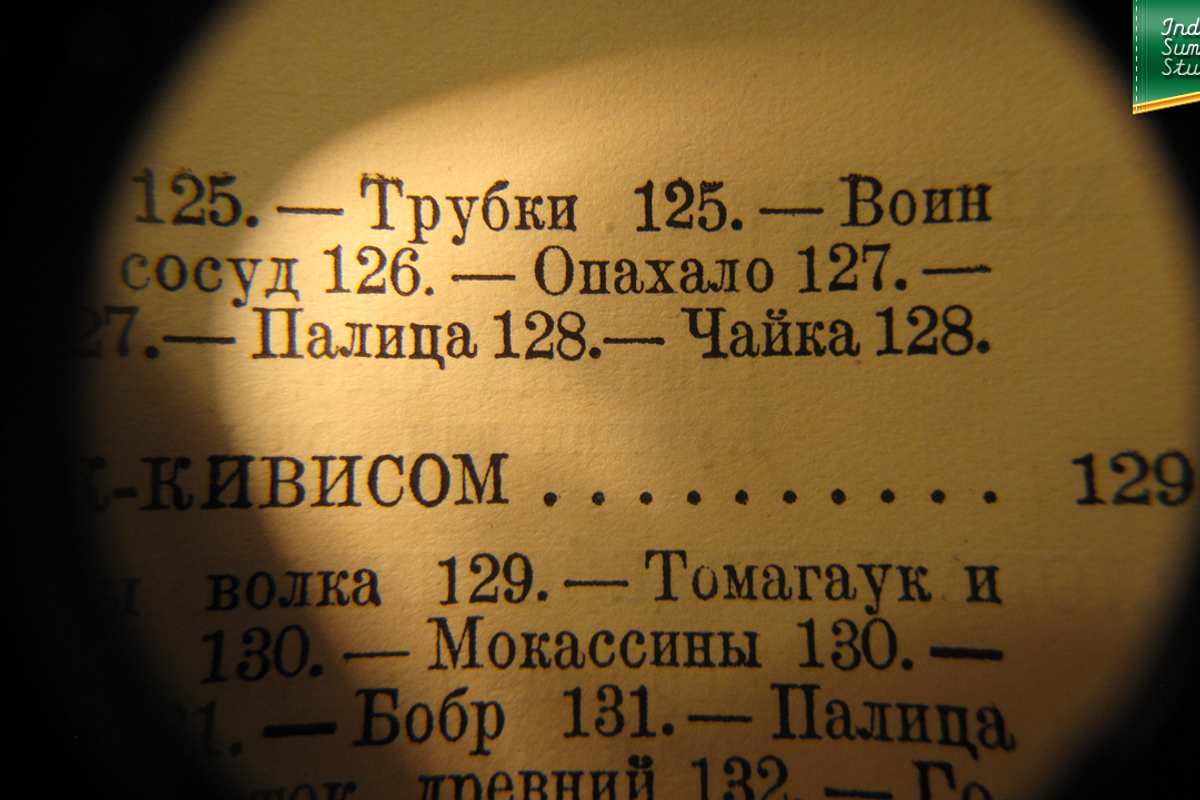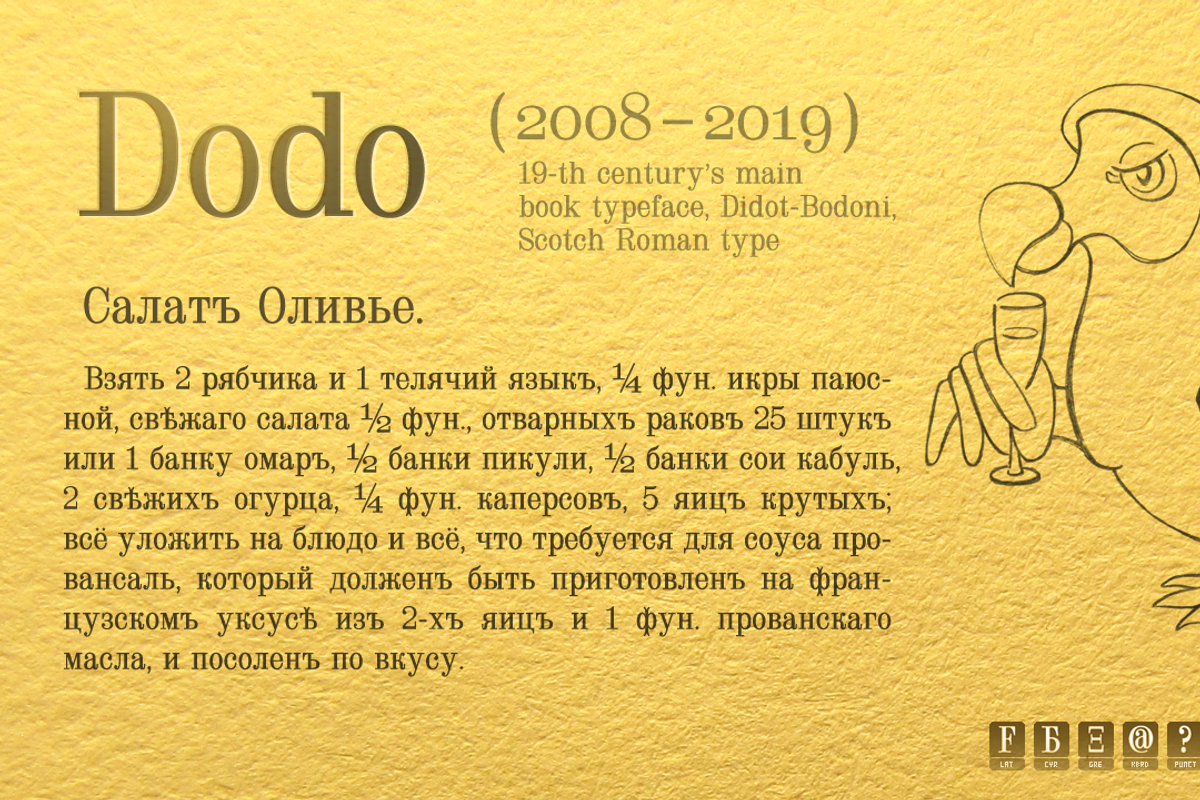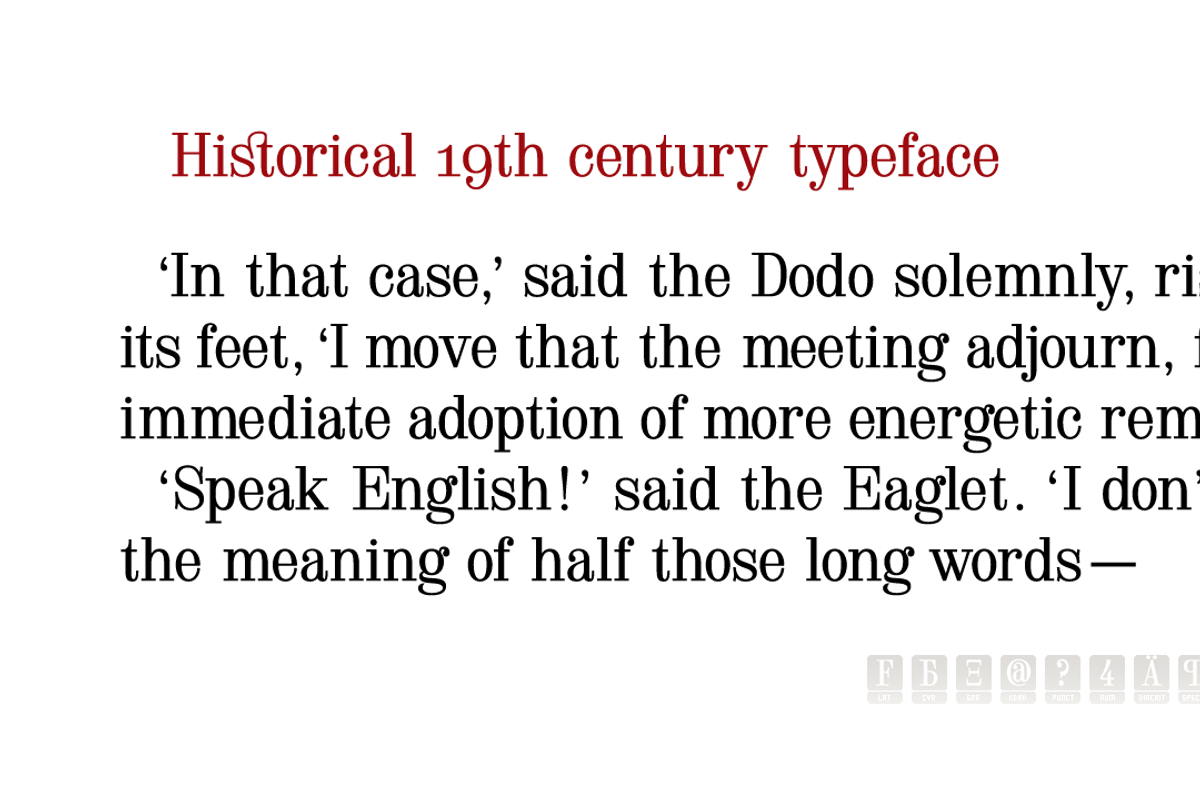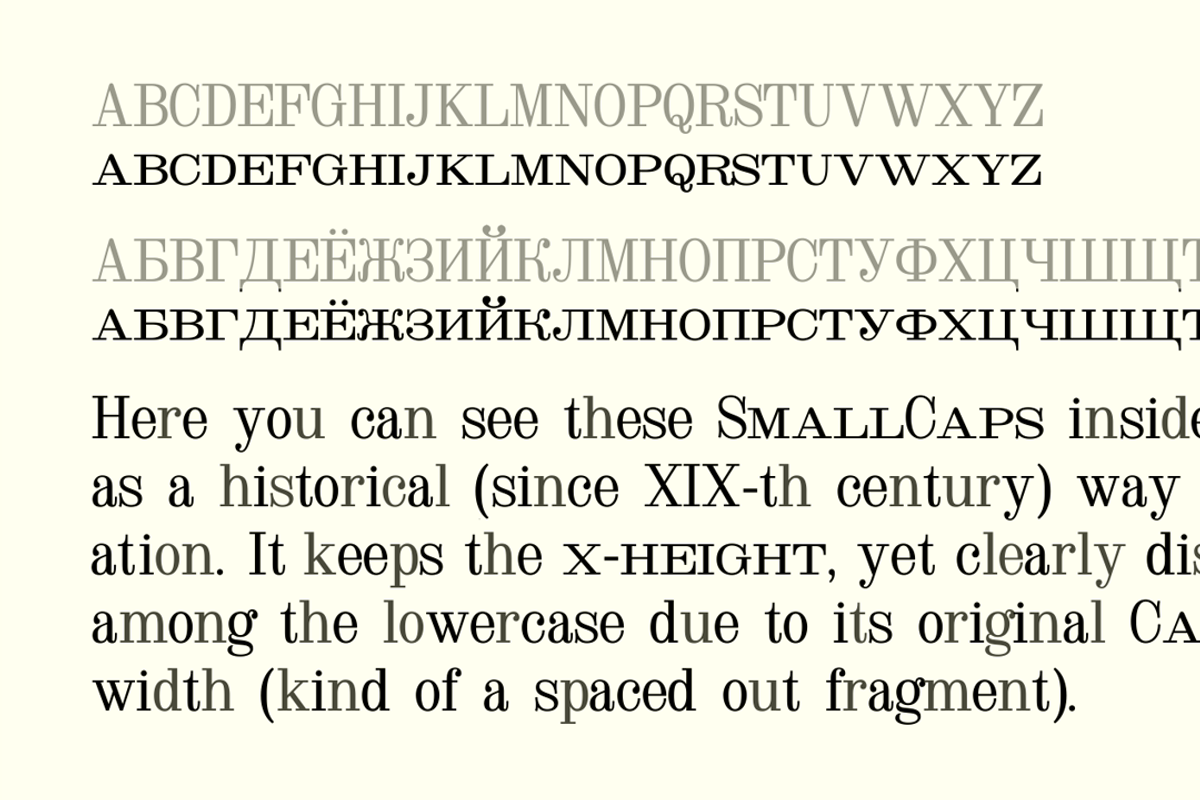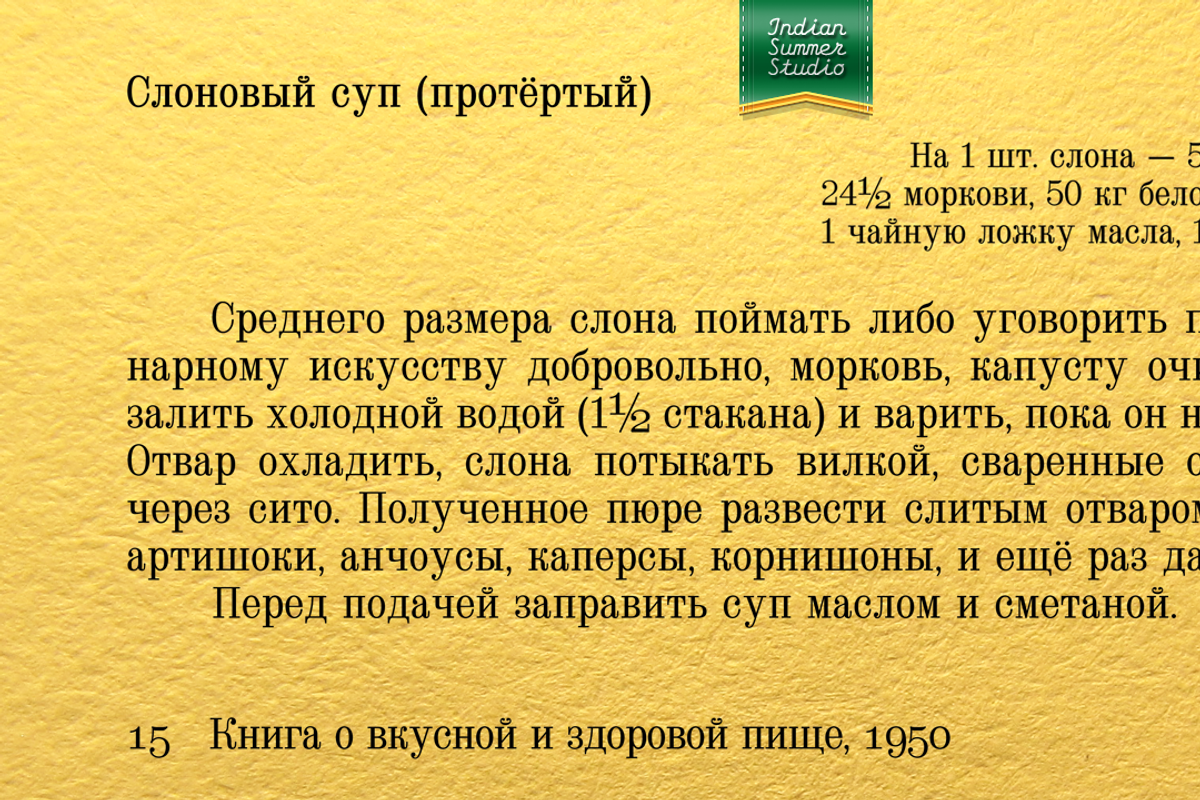
Dodo
Modern antiqua (Scotch, Victorian) «Dodo», 2008–2019. Named then because of Bodoni–Didot.
XIX-th century fonts, especially Victorian antiquas, were almost excluded from the modern use by their XX-th century’s descendants.
And these new books had lost too much of their former beauty, elegance. Their old noble spirit.
This project, «Dodo» was started in 2008 year as the first then modern revival for the Old Imperial Russian book scotch antiqua, used 120–170 years ago in almost every printed book. Still keeping the spirit of the Steam æra.